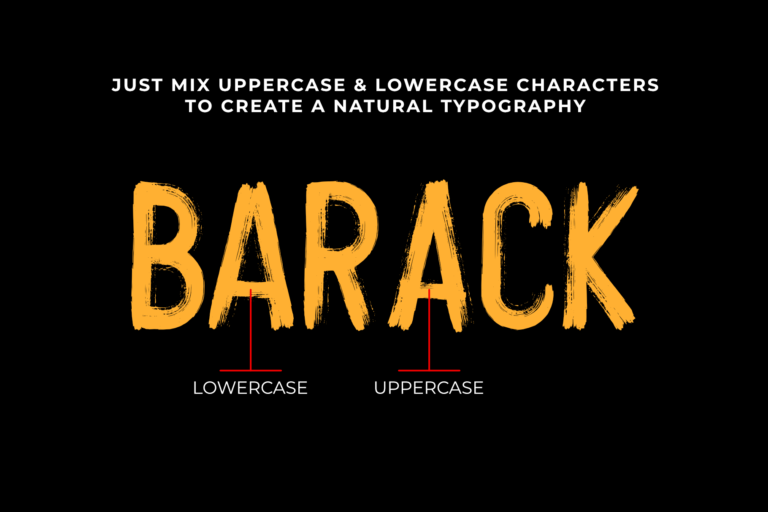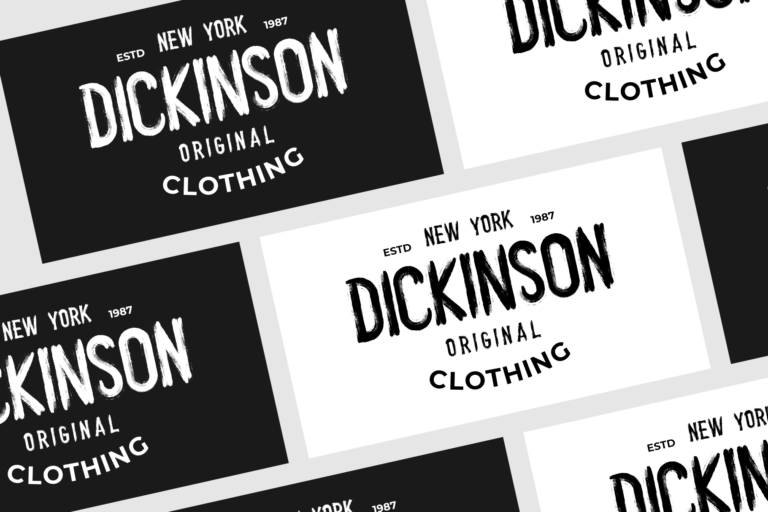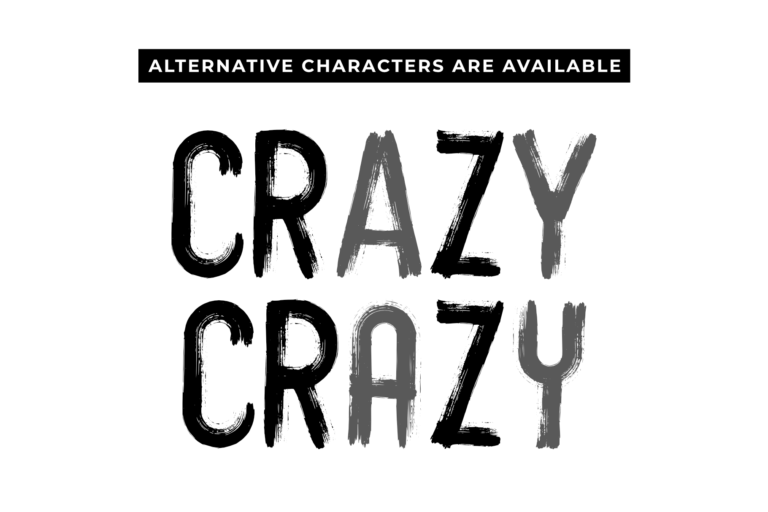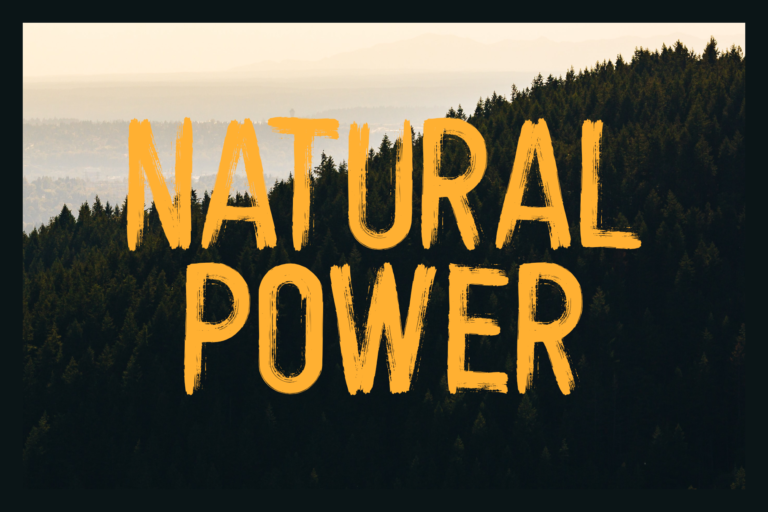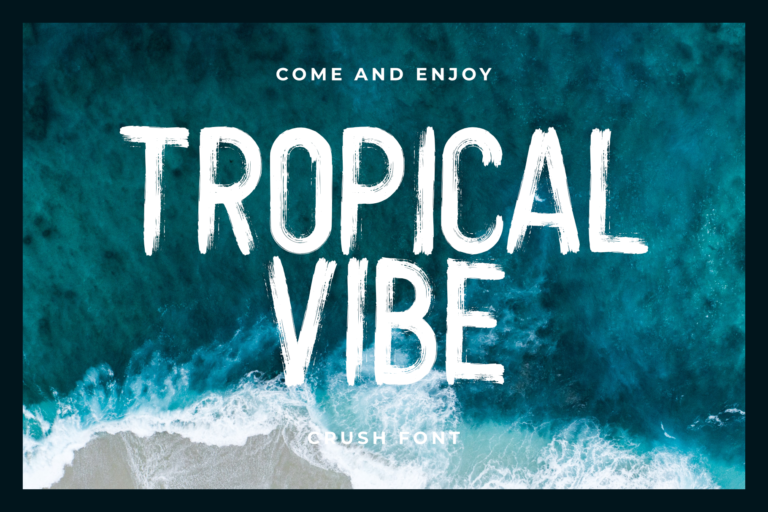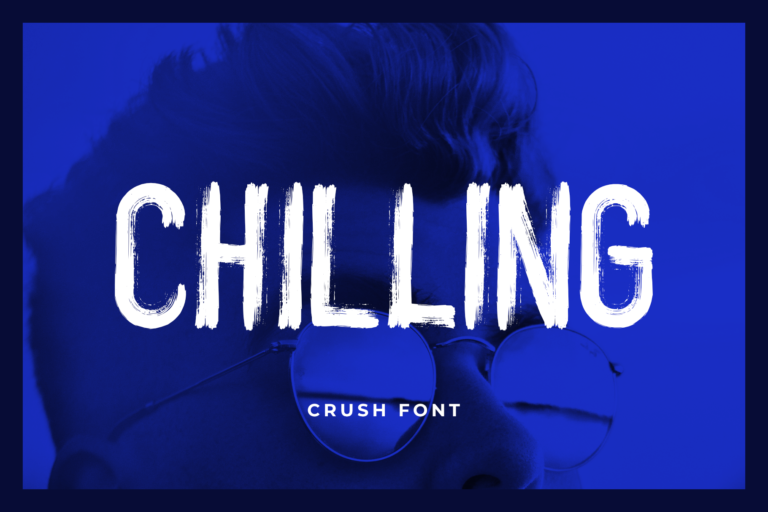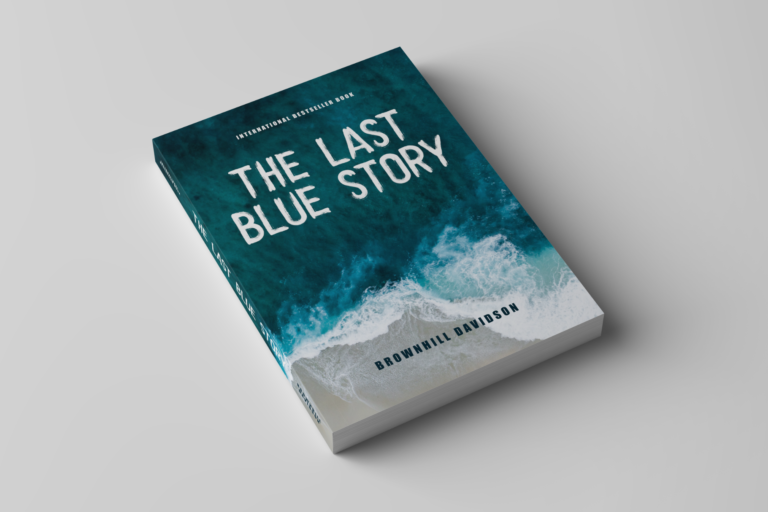
CRUSH
Hello everyone, CRUSH is a brush font and entirely hand-painted sans serif. A raw, bold, condensed font, with brushy imperfections and an earthy realism.
This fresh brush font is an all caps font, with two alternatives for some letter, to maintain the custom made look, without obvious doubles.